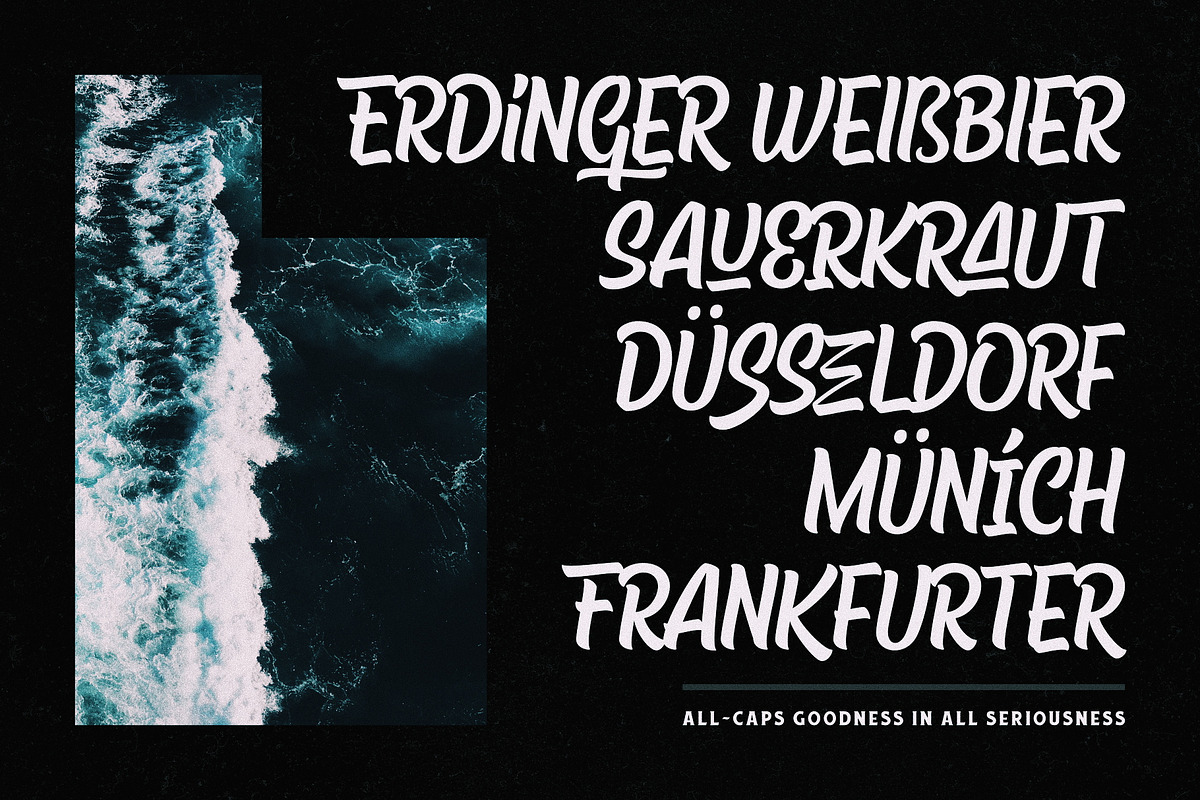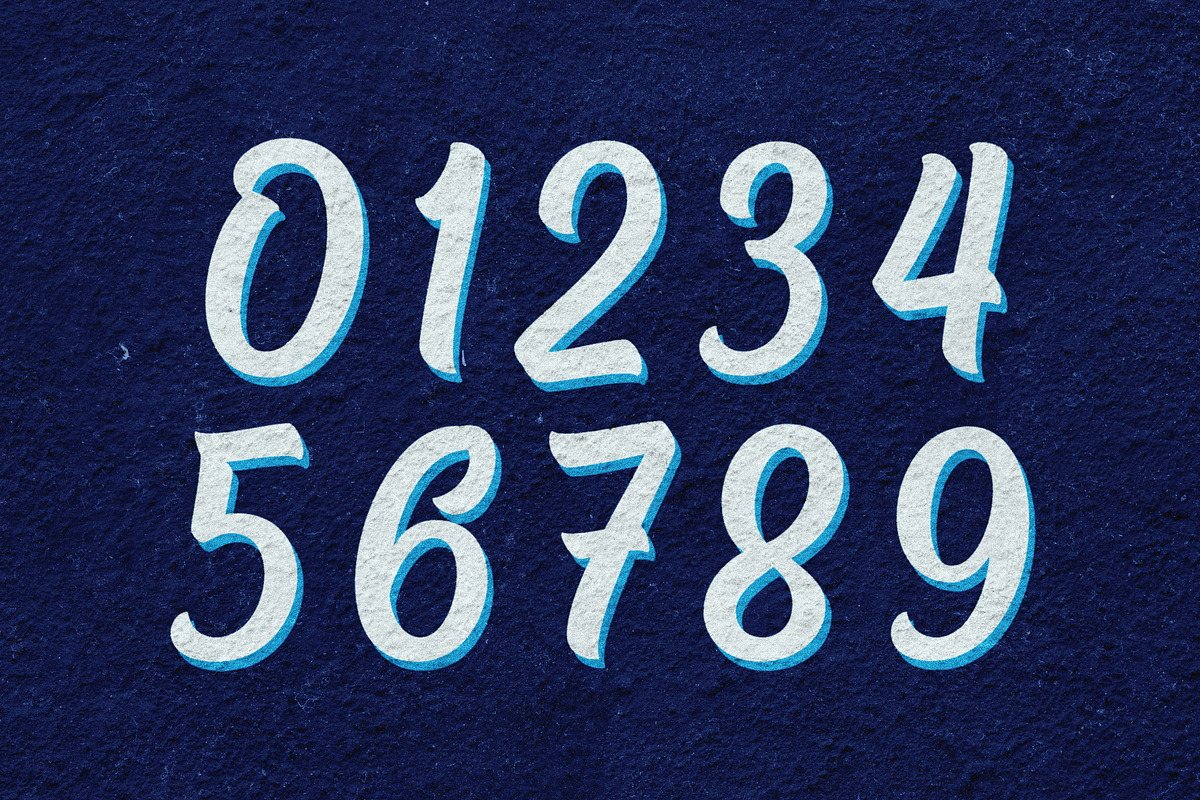
Chuck Noon Brush
After the hit of previous script version, we decided to explore and re-develop our Chuck Noon series into an all-caps brush version. A clean and bold font that offers you a natural vintage signpainting experience. Handcrafted and digitally checked with high attention to the details, we're a sucker for clean lines and crispy edges too, just like you. Its dynamic letterforms work like magic, combine both upper and lower case to get the various letter combinations. Suits best for logotype, poster/t-shirt designs, food/beverage labels, faux-signpainting design, hipster quotes, greeting cards, wedding invitations, and many more.
Consists of 300+ glyphs (includes some OpenType Features like standard and discretionary ligatures, special-alternate characters, contextual alternates, swashes, initial-terminal forms, multingual characters, etc), This font is a great addition for your designing arsenal. PUA encoded too, so you can get the access to special characters thru Character Maps and Font Book, no special software needed. For Adobe user, you can use this guide to access them too: http://adobe.ly/1m1fn4Y